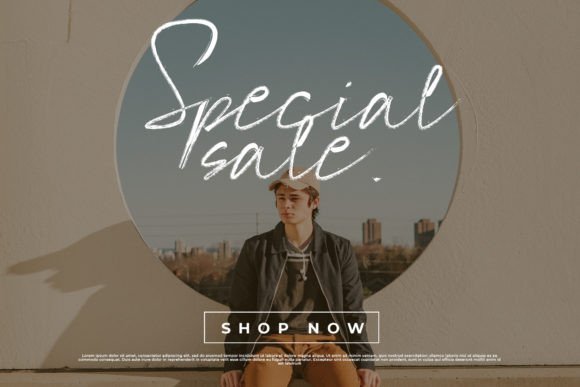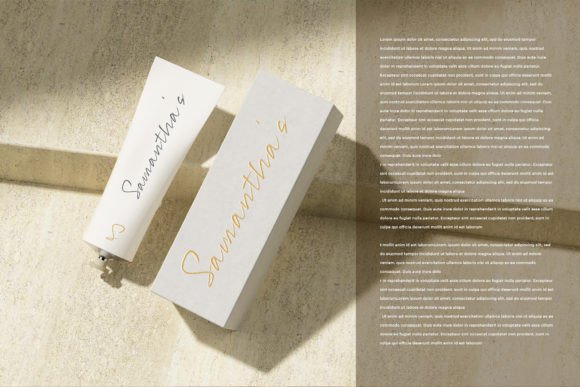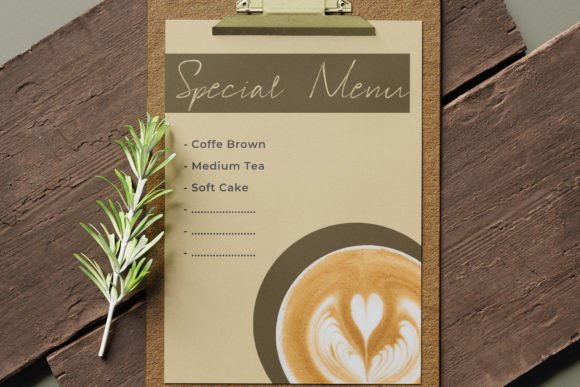
Introduction to Signotera Brush Font
Signotera Brush is a script font with a natural brush signature.
It’s suitable for advertisement, social media, invitations, branding, products, handwritten, and so on .
Key Features of Signotera Brush Font
Why Choose Signotera Brush Font?
Signotera Brush Font offers exceptional quality and versatility, making it a valuable addition to your design toolkit. Whether you’re creating for personal projects or commercial use, Signotera Brush Font delivers professional results.